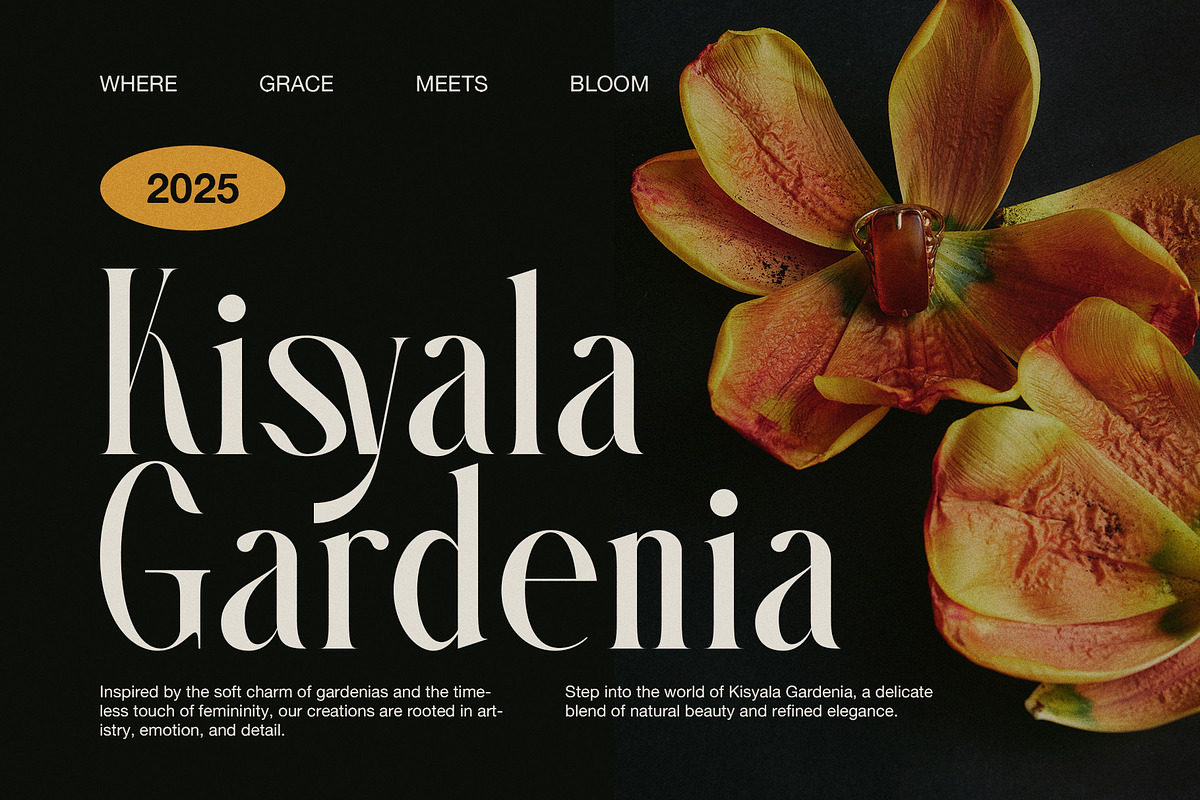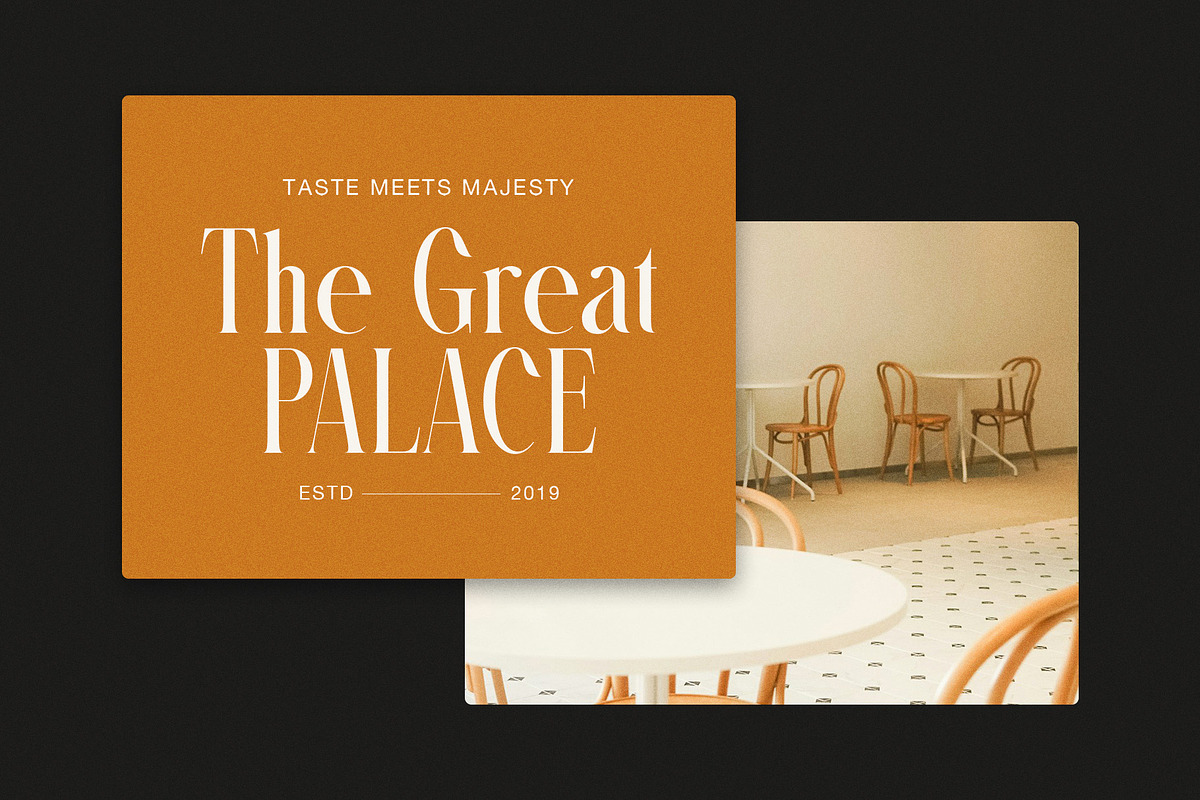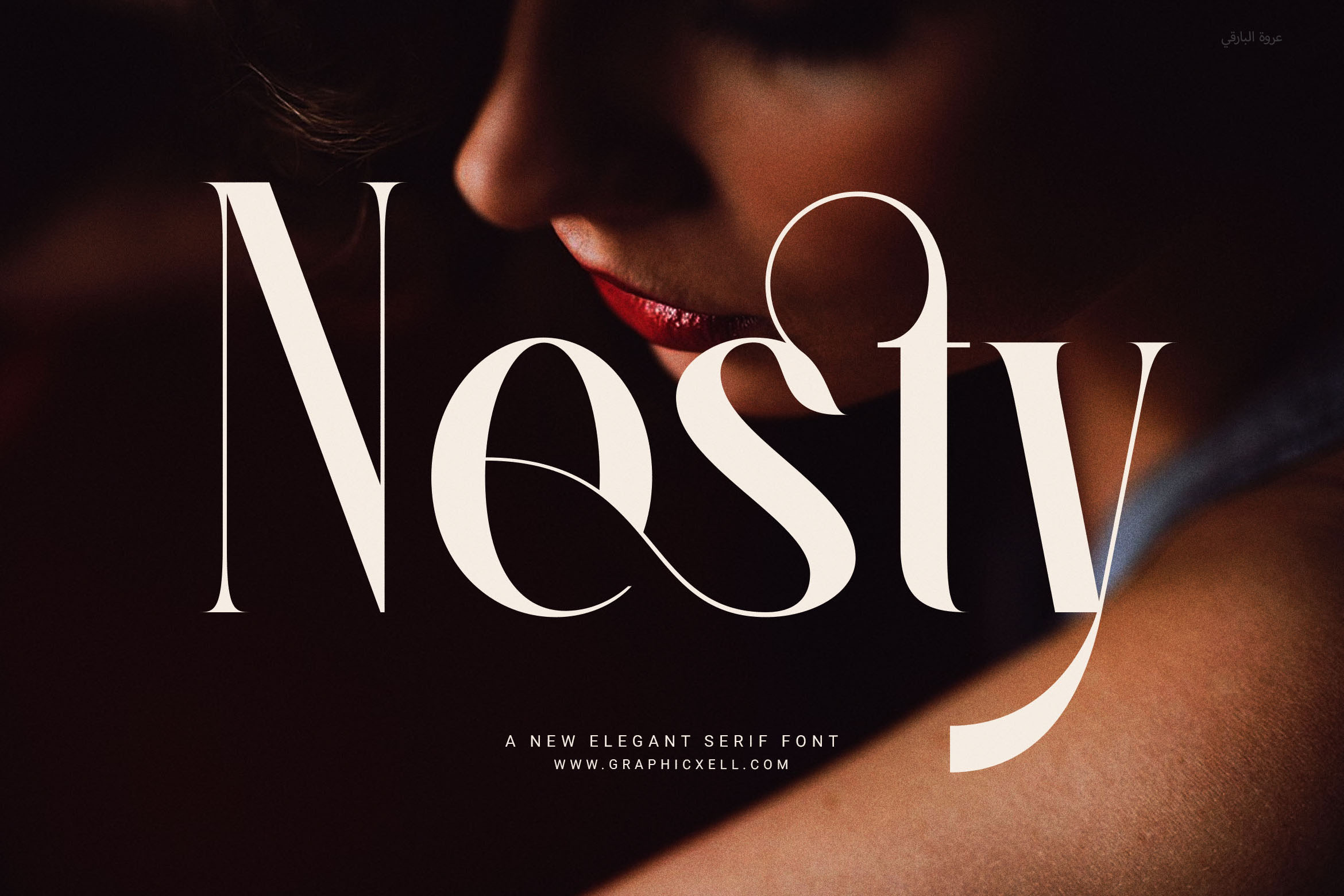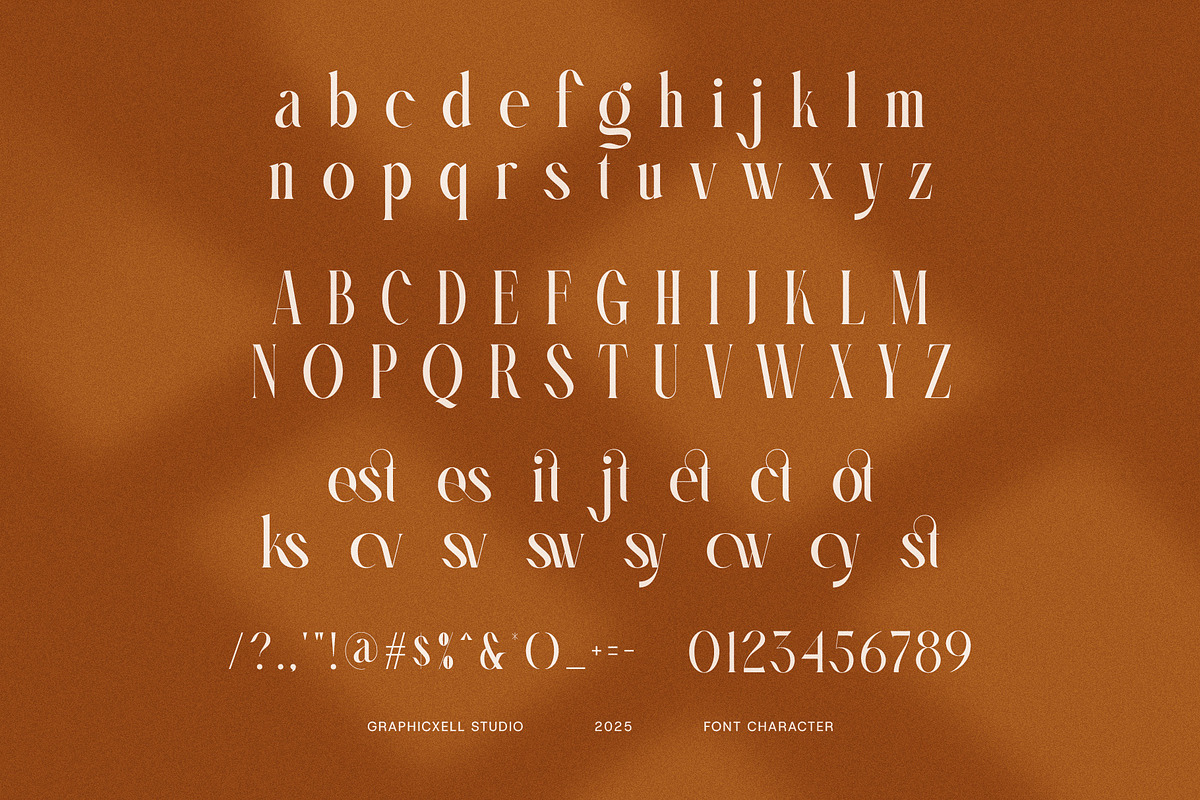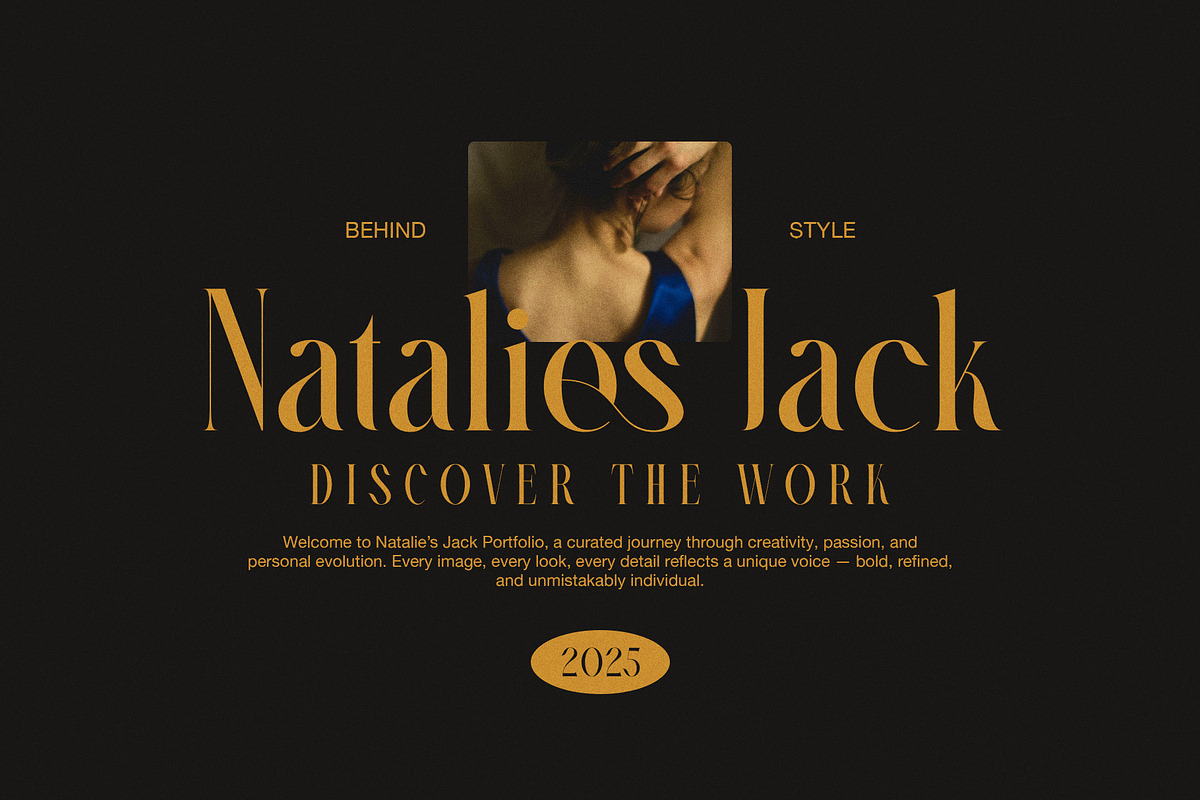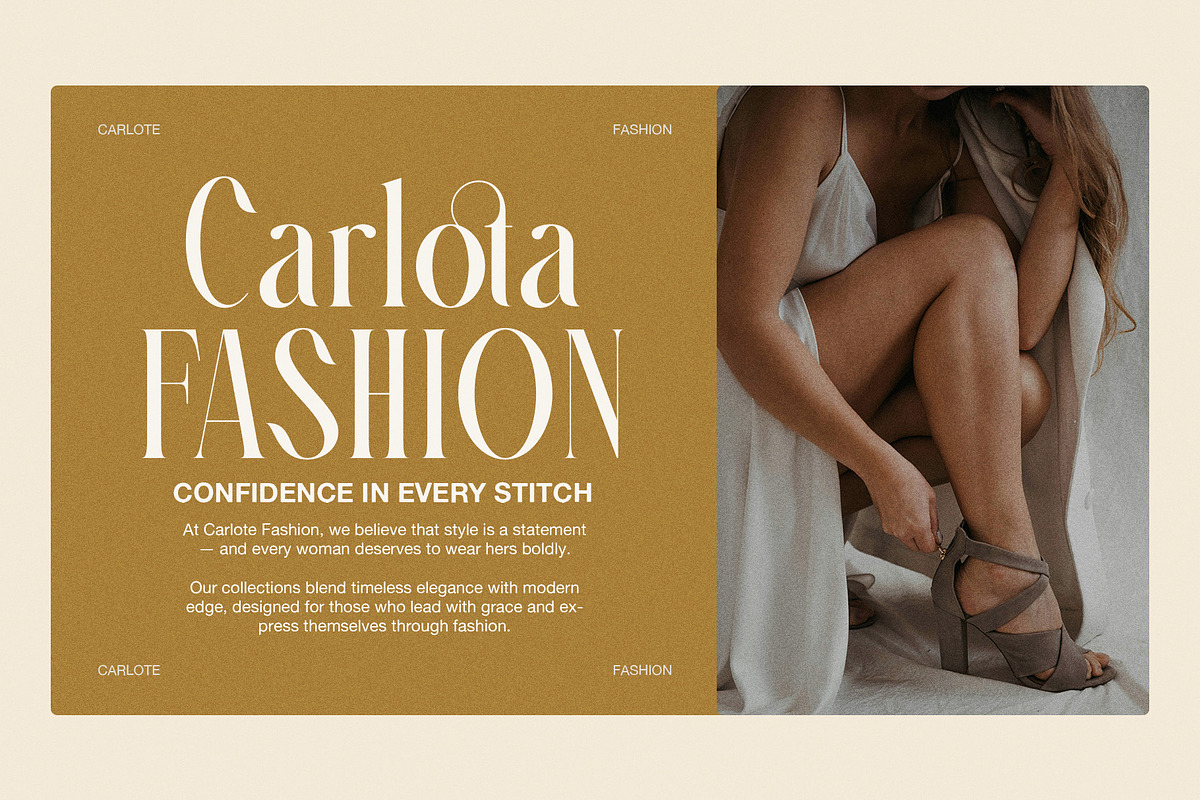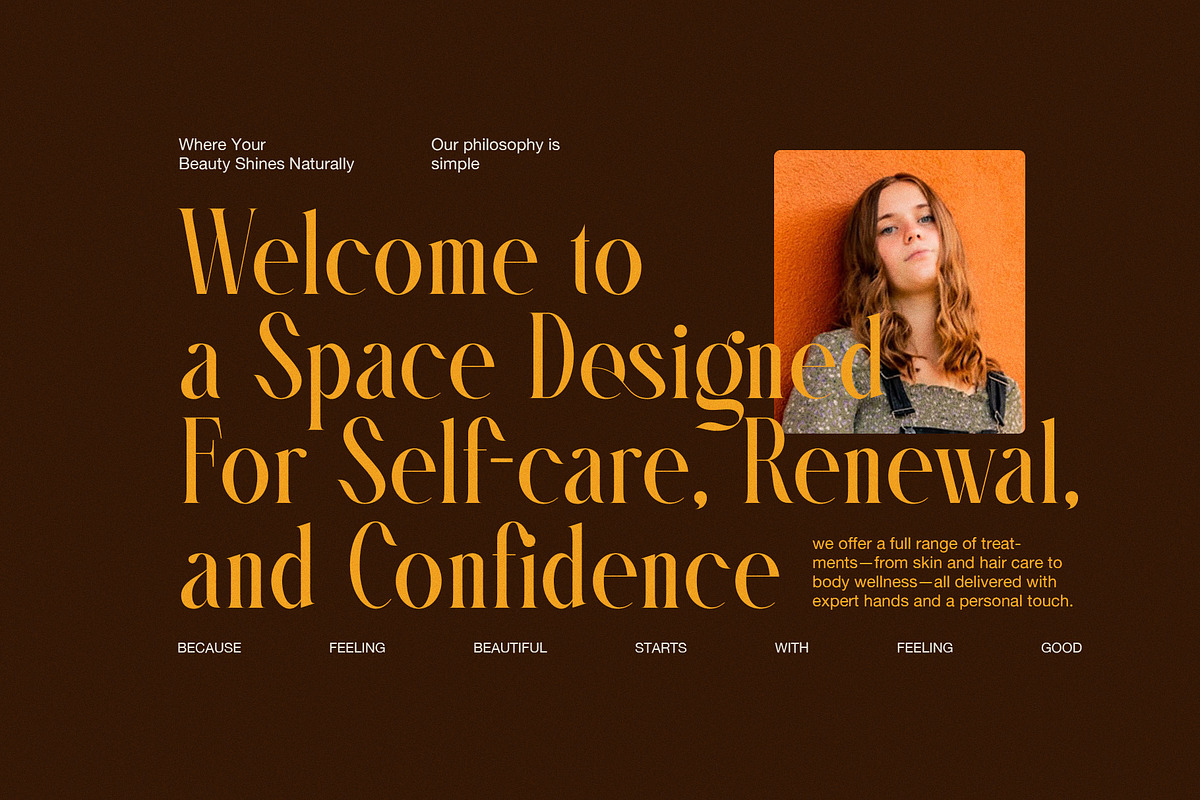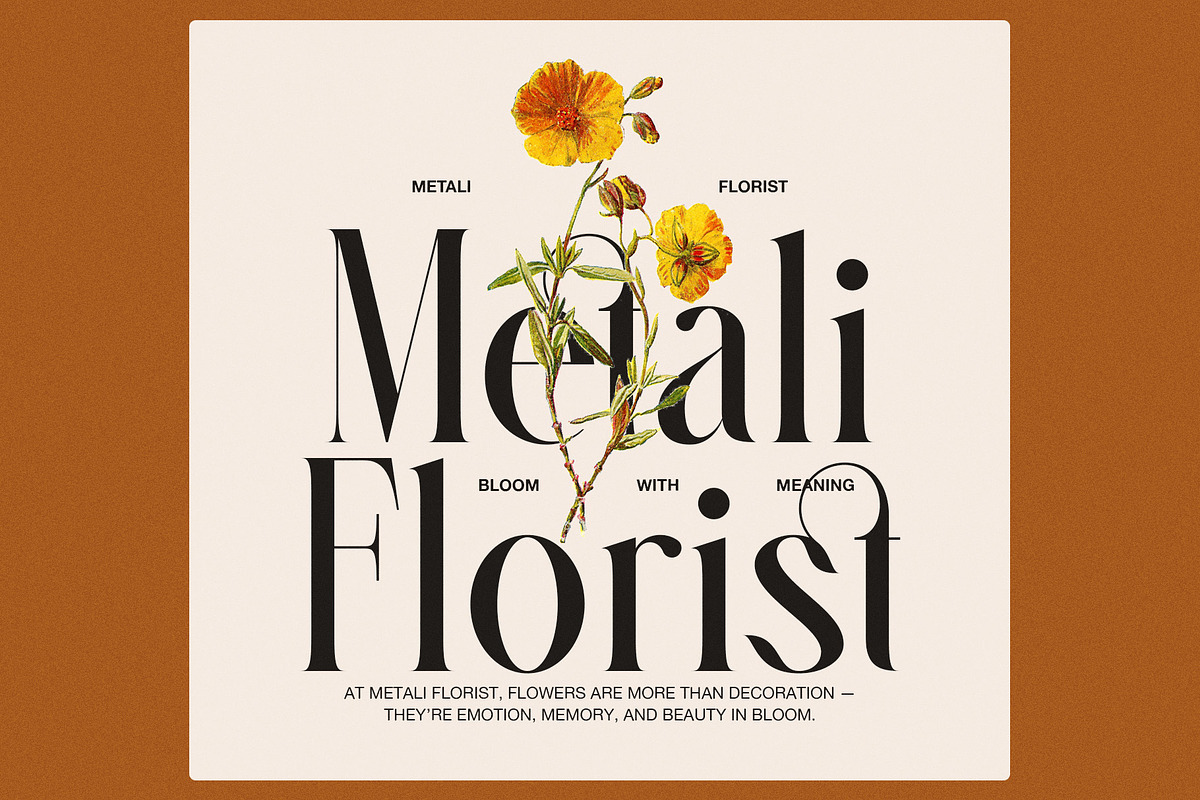
Nesty Elegant Serif Font
Nesty Elegant Serif Font – Classic Beauty with a Modern Twist
Nesty Elegant Serif Font is a modern serif typeface with a clean and graceful design. Created with stylish, proportional letterforms, this font brings both elegance and clarity to your work. Whether you're creating a logo, website, or product label, Nesty adds a premium and professional look.
Each character in Nesty is designed with smooth curves and refined edges, making your text look both soft and strong. The font also includes functional ligatures, giving your design extra style while keeping it easy to read.
Thanks to its versatile structure, Nesty fits perfectly in a wide range of creative projects. It works great for digital designs, yet still looks beautiful in print. You can use it for high-end branding or simple marketing materials and still get a high-quality result.
Logos and upscale branding
Fashion, beauty, and boutique packaging
Website headers and hero sections
Magazine covers and editorial design
Product labels and tags
Invitations and event materials
Social media posts and ads
Nesty’s charm lies in its balance—modern but timeless, stylish but readable. It's easy to use and makes every project feel more polished. So, if you want your work to stand out while staying elegant, Nesty Elegant Serif Font is a great choice.